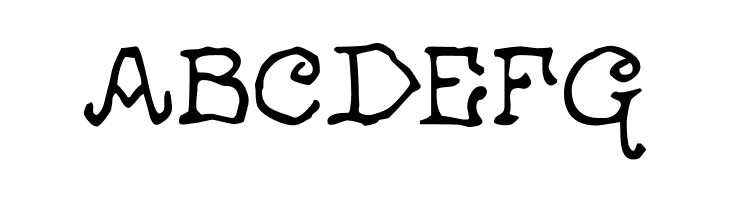
Aurelio Unicase_Trial Font
- Font: Aurelio Unicase_Trial
( Fonts by Typography in Decay )
A decorative and ornate font with intricate serifs and artistic details.